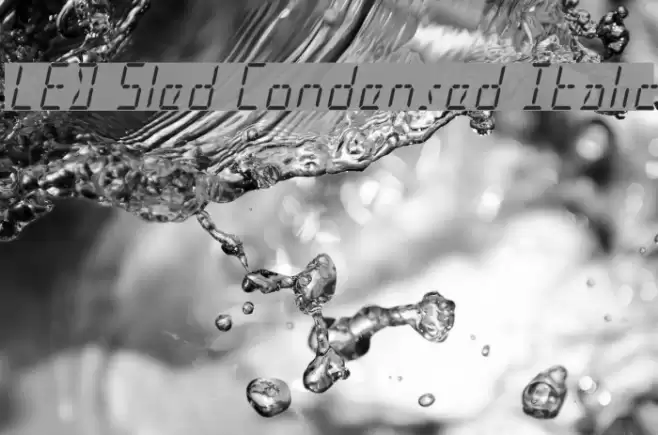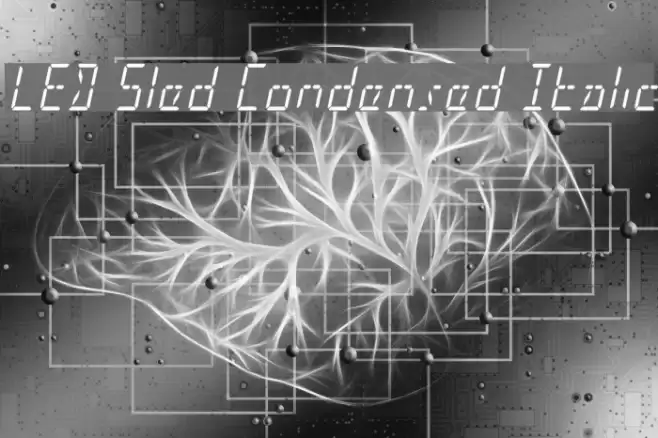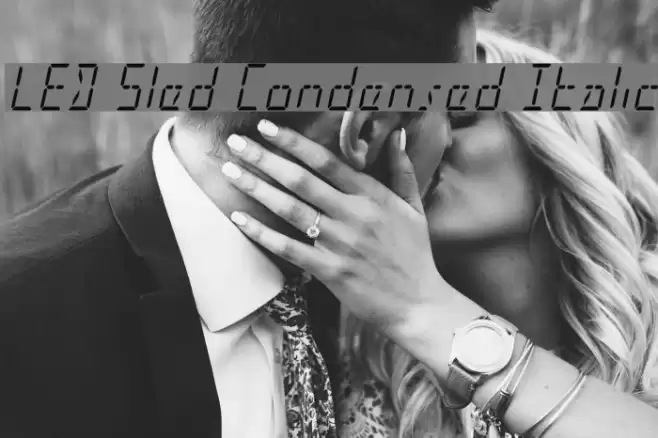
LED Sled Condensed Italic Font
LED Sled Condensed Italic Description
This font features a futuristic and digital-inspired design, reminiscent of LED displays. The characters are constructed with segmented lines, creating a geometric and angular appearance. The italic style adds a dynamic and forward-leaning aspect, enhancing its modern and tech-savvy look. The condensed width allows for efficient use of space, making it suitable for environments where space is limited. The font maintains a consistent stroke thickness, providing a uniform and cohesive visual experience. Its unique style is ideal for projects that require a digital or technological theme.
A futuristic, digital-inspired font with a condensed and italicized style from Futuristic fonts.
- Proposed Projects: Ideal for digital displays, tech-themed posters, video game interfaces, and modern branding.